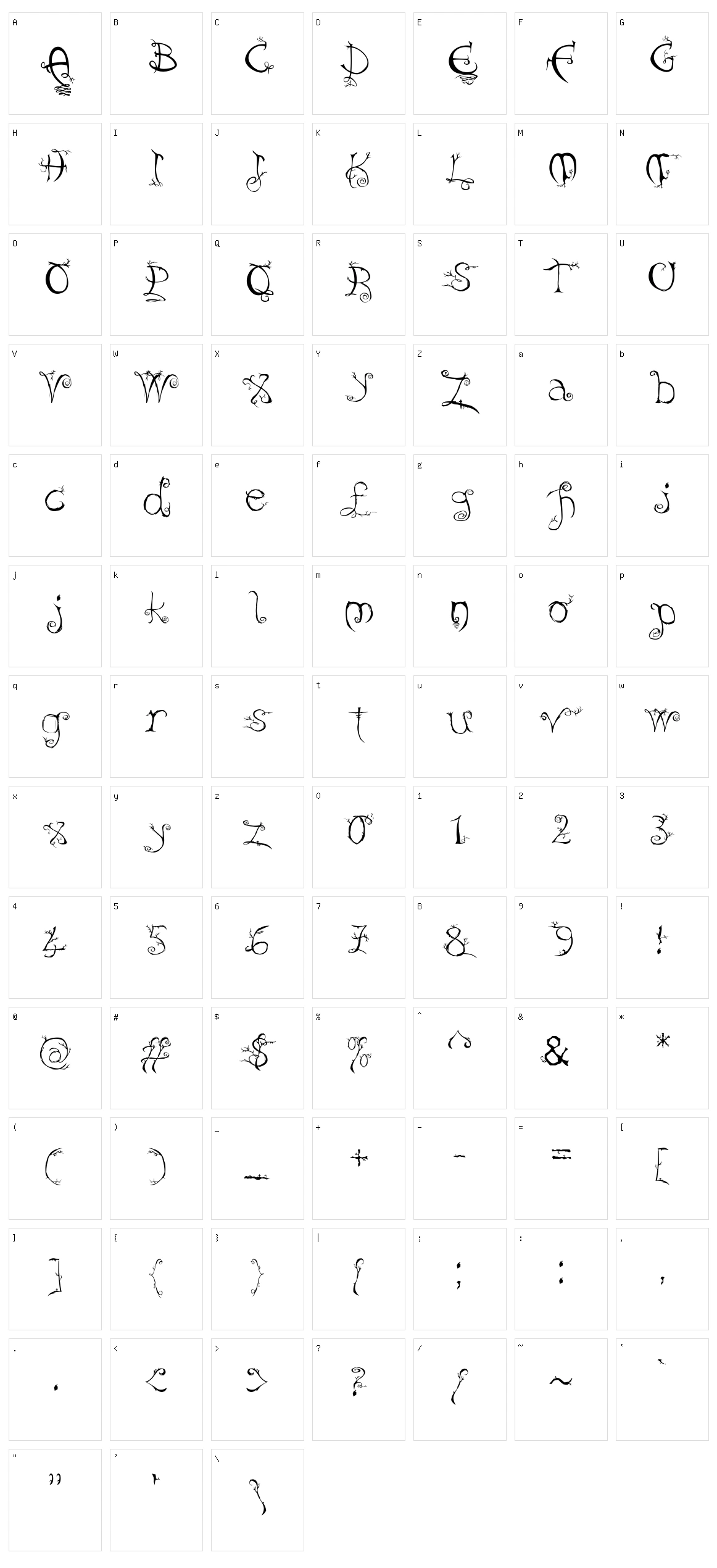
x EVERNIGHT FONT from Best Seller of CLAUDIA GRAY x x
Font name: EVERNIGHT- Latin Decorative font (versione 1.0/2.0)
Type designer: P. A. Vannucci (Font Lab Studio 5.0)
Evernight font: directly from the Best Seller of Claudia Gray, the
dark "gotiche" atmospheres beloveds to the cult of the vampiro, in an
unknown garment that gives the young "adolescenziale romanticismo" in
the name of Bianca and Lucas, in the forbidden Love beloveds to the gotten passionate girls-readers more.
Evernight font: direttamente dal best seller di Claudia Gray, le cupe atmosfere gotiche nel culto del vampiro,
in una veste inedita, nel nome del romanticismo adolescenziale, dell'amore proibito di Bianca e Lucas, per le lettrici più
appassionate.